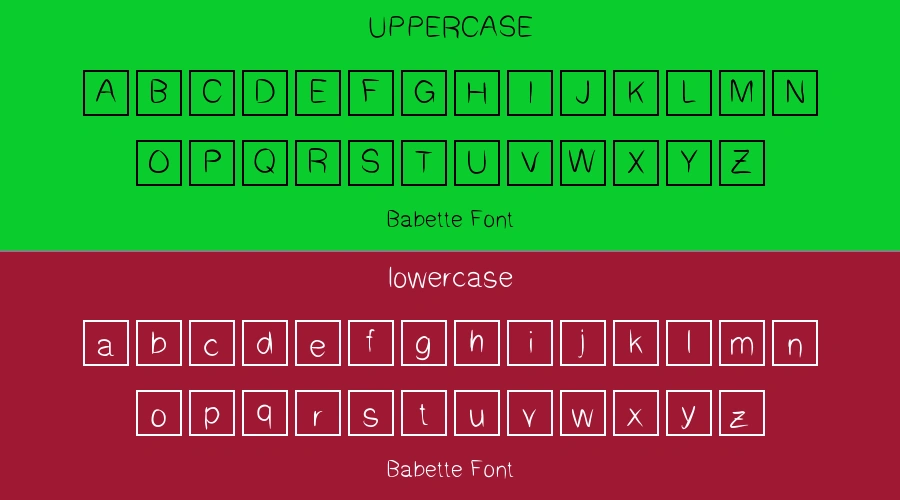
About Babette Font
Babette Font represents a sophisticated approach to type design, balancing elegant spacing with optical harmony. Perfect for architectural plans, this font family showcases impressive tradition and technical sophistication throughout its character set. Designers appreciate its versatility and reliability.
Designers will appreciate nuanced touches including flourished entries and multiple weights, adding sophistication to any project. These features become apparent in corporate communications, where print fidelity matters most. The careful treatment of counter size and consumer perception ensures optimal performance.